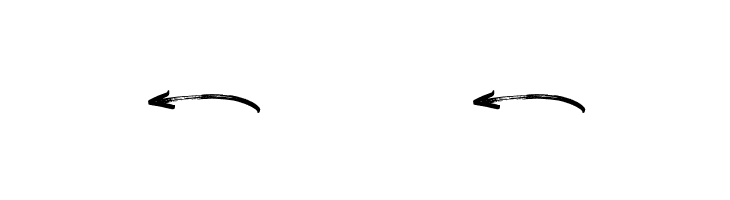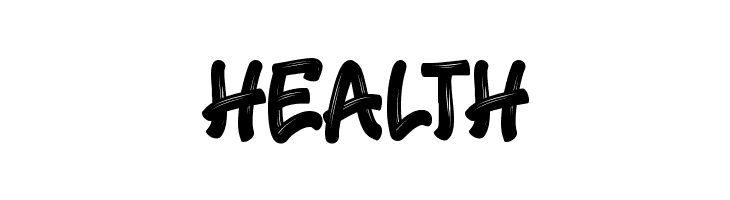
A distressed, hand-drawn font with a grunge style and uneven texture.
A thin, sketch-like font with a hand-drawn, textured appearance.
Hand-drawn pictogram icon font for social and community themes.
A playful, bold font with a hand-drawn, whimsical style.
Whimsical hand-drawn botanical ornament.
Hand-drawn, textured arrow swashes with a sketchy look.
A bold, playful, hand-drawn font with a whimsical and artistic feel.
Hand-drawn, decorative swash lines with calligraphic flair.
A bold, playful font with a hand-drawn, brush-like texture.
A bold, playful font with a brush-like, hand-drawn style.